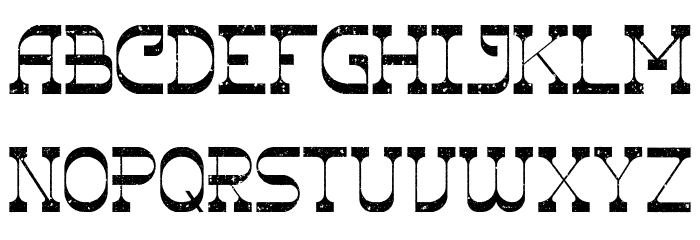
The Ranch Roughen Font
This font features a bold, rugged design with a distressed texture that gives it a vintage, worn-out appearance. The characters are blocky and robust, with a consistent thickness throughout, creating a strong visual impact. The distressed effect adds a rustic charm, making it ideal for projects that require a touch of nostalgia or a rugged aesthetic. The uppercase and lowercase letters maintain a uniform style, while the numbers and special characters complement the overall design. This font is perfect for creating eye-catching headlines, posters, and branding materials that need a bold and distinctive look.
A bold, distressed font with a vintage, rugged appearance.
- Font: The Ranch Roughen
- Proposed Projects: Ideal for vintage-themed posters, rustic branding, and eye-catching headlines.
- Overall Style: Vintage